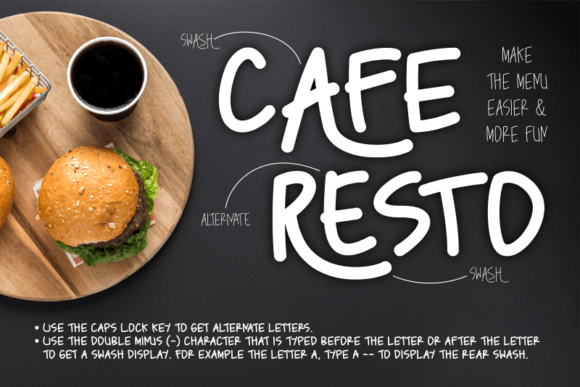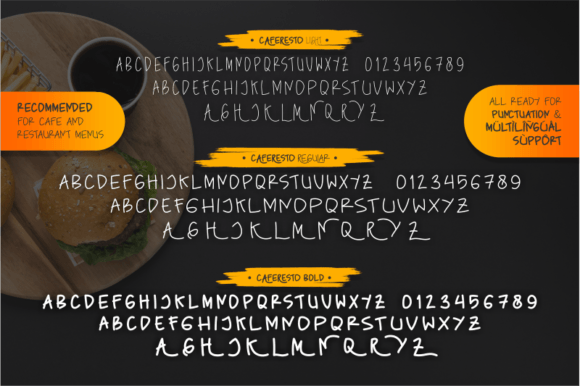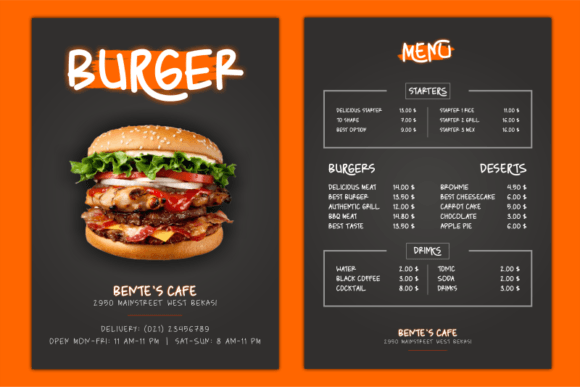
Introducing Caferesto Font: The Ultimate Handwritten Font for Creative Projects
Are you a designer, crafter, or DIY enthusiast looking for a font that can add a personal touch to your creative projects? Look no further than Caferesto Font, a cute and casual handwritten font that exudes an incredibly friendly feel. In this article, we’ll dive into the world of Caferesto Font and explore its features, benefits, and uses.
What is Caferesto Font?
Caferesto Font is a modern, handwritten font designed to bring a touch of warmth and personality to your creative projects. Its casual, laid-back vibe makes it perfect for a wide range of applications, from social media graphics and Instagram posts to calligraphy scripts and DIY projects.
Key Features of Caferesto Font
• Cute and Casual Design: Caferesto Font boasts a playful, handwritten design that’s sure to capture the attention of your audience.
• Friendly Feel: The font’s friendly feel makes it perfect for creating approachable, relatable content that resonates with your audience.
• Highly Versatile: Caferesto Font can be used for a wide range of creative projects, from digital graphics to print materials.
• Easily Readable: The font’s clear, legible design ensures that your message is conveyed clearly, even at smaller font sizes.
Benefits of Using Caferesto Font
So, why choose Caferesto Font for your creative projects? Here are just a few benefits of using this amazing font:
• Adds a Personal Touch: Caferesto Font’s handwritten design adds a personal touch to your creative projects, making them stand out from the crowd.
• Enhances Engagement: The font’s friendly feel and playful design can help increase engagement and interaction with your audience.
• Perfect for Branding: Caferesto Font can be used to create a consistent brand identity across various platforms, including social media, websites, and print materials.
Using Caferesto Font for Instagram and Social Media
In today’s digital age, social media is an essential platform for showcasing your creativity and connecting with your audience. Caferesto Font is perfect for creating engaging Instagram posts, stories, and IGTV content that stands out from the crowd.
• Create Eye-Catching Graphics: Use Caferesto Font to create stunning graphics, quotes, and inspirational messages that grab attention.
• Develop a Consistent Brand Identity: Use the font to create a consistent brand identity across your social media platforms.
• Make Your Content More Shareable: The font’s playful design and friendly feel can make your content more shareable and engaging.
Using Caferesto Font for Calligraphy and DIY Projects
Caferesto Font is also perfect for calligraphy and DIY projects, such as:
• Hand Lettering: Use the font as a reference for hand lettering, or import it into your favorite design software for digital editing.
• DIY Crafts: Add a personal touch to your DIY crafts, such as journals, planners, and cards.
• Custom Signs and Posters: Use Caferesto Font to create custom signs and posters for your home, office, or business.